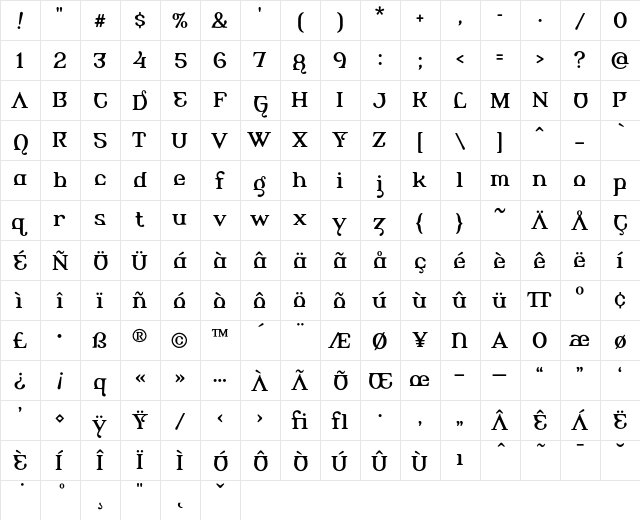
AlembicBeta RegularTwo
Design Context for AlembicBeta Typeface
AlembicBeta takes a measured approach to typography — its balanced proportions and neutral character make it a reliable workhorse for both digital and print work.